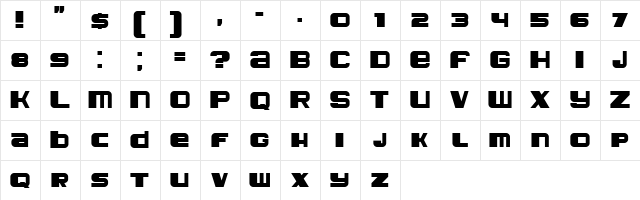
Leprosy Regular
Design Context for Leprosy Typeface
Leprosy takes a measured approach to typography — its balanced proportions and neutral character make it a reliable workhorse for both digital and print work.